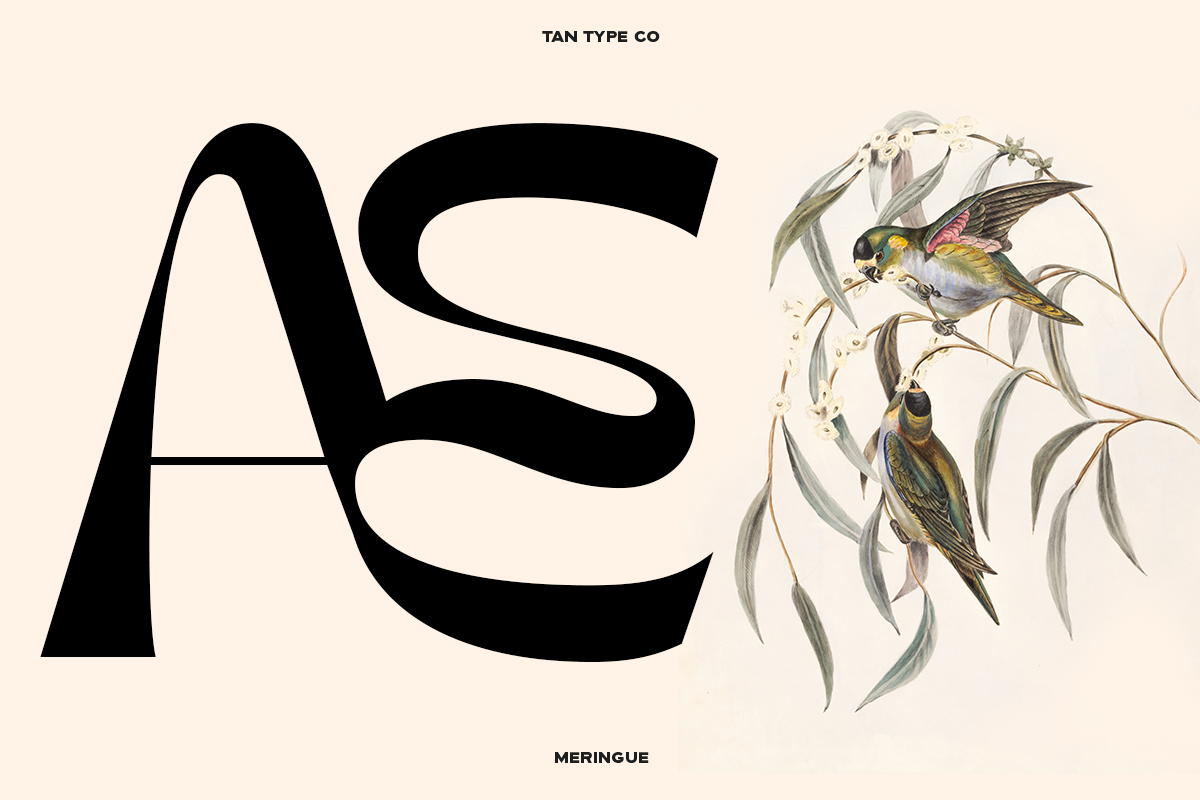
TAN – MERINGUE is a retro display typeface. Its curves give it a fun personality. Perfect if you want to add character to your project(s). Perfect for: party posters, branding, product packaging, social media graphics, and any creative project that craves a bold and playful 90s aesthetic.